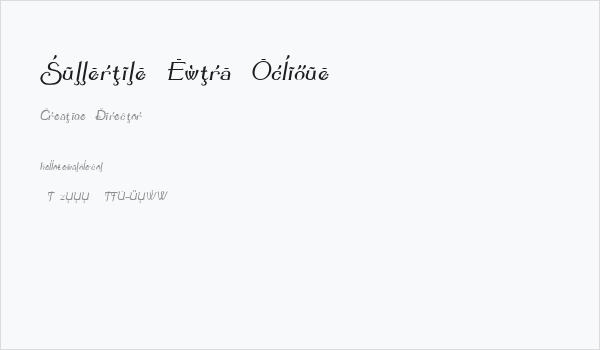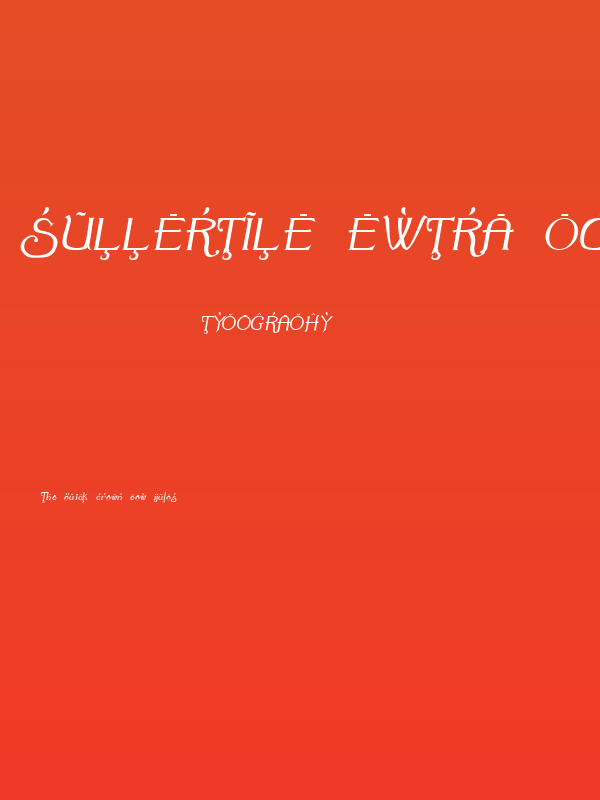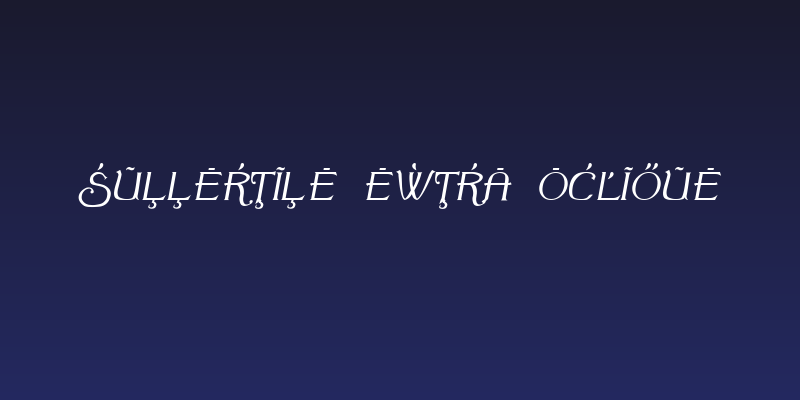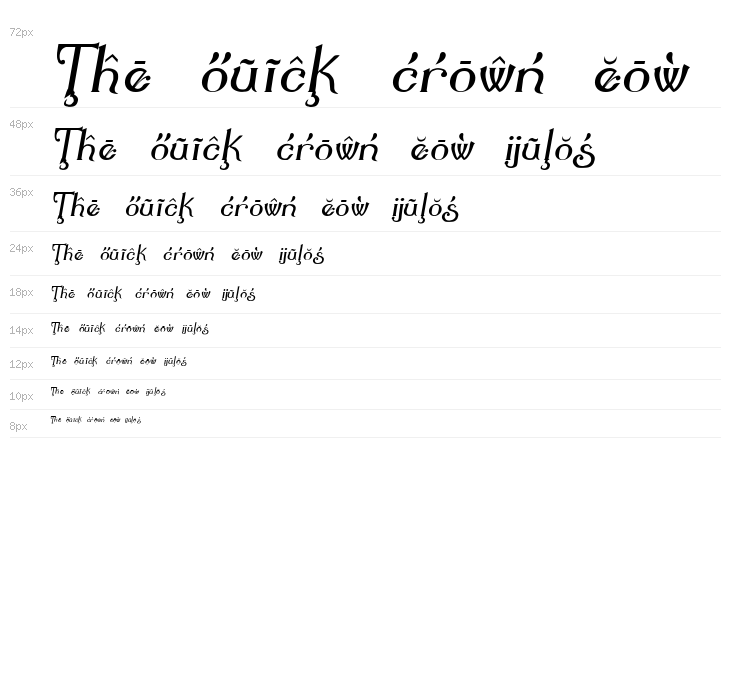
Summertime Extra Oblique Font
Summertime Extra Oblique Description
This font exhibits a unique blend of elegance and flair, characterized by its oblique style and decorative accents. The letters are adorned with diacritical marks, adding a sophisticated touch. The strokes are moderately thick, providing a medium contrast that enhances readability while maintaining an artistic appeal. The font's flowing curves and sharp edges create a dynamic and lively appearance, making it suitable for creative and expressive projects. Its distinct style is both modern and slightly whimsical, perfect for capturing attention.
| Proposed Projects | Ideal for invitations, greeting cards, branding, and artistic posters. |